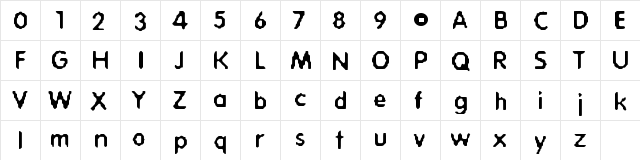
Acid Bath Regular
Design Context for Acid Bath Typeface
Acid Bath is a composed and adaptable typeface that performs quietly and consistently across a wide range of design contexts.